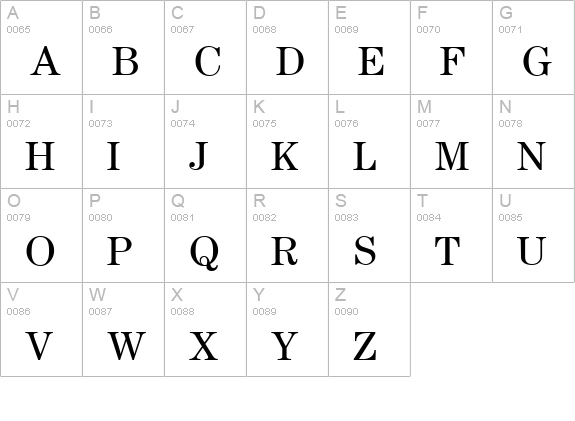
ModernCentury-Regular is the standard, neutral variant in the ModernCentury typeface family \xE2\x80\x94 well suited to general body text, paragraphs, and standard typographic work.
ModernCentury-Regular is a stylish and versatile font that combines the elegance of a classic serif typeface with a modern twist. Its clean lines and balanced proportions make it perfect for a wide range of design projects, from branding to editorial design. The timeless appeal of ModernCentury-Regular makes it a popular choice for designers looking to add a touch of sophistication to their work. What's even better is that ModernCentury-Regular is available for free download at FontsMarket.com. This means that you can easily access this high-quality font without breaking the bank, making it a valuable addition to your font collection. Whether you're working on a personal project or a client's design brief, ModernCentury-Regular is sure to elevate your typography game with its timeless style and versatility. Download it today and see for yourself the impact this font can have on your designs.